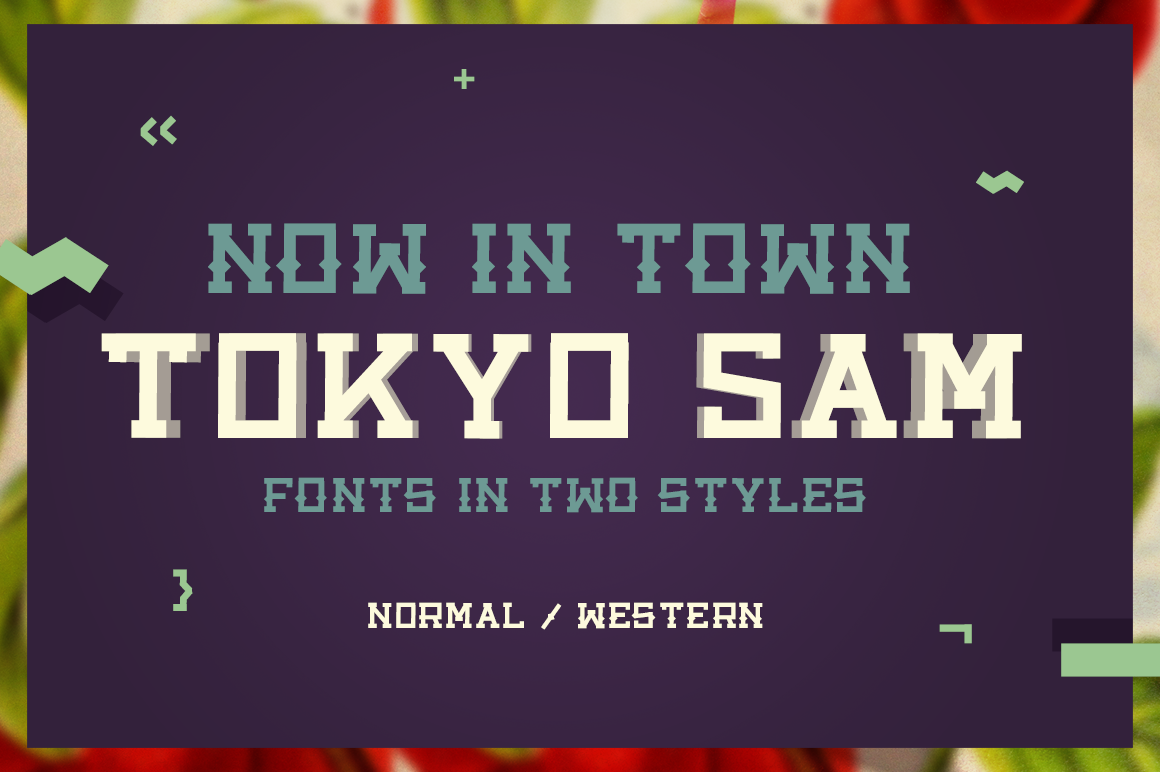
Tokyo Sam - Fonts in two styles -50%
Tokyo Sam is a simple slab fonts in two styles, normal and western. Simple, clean, easy to use, strong and powerful.
Perfect for your design jobs, print or web, small or ultra big.